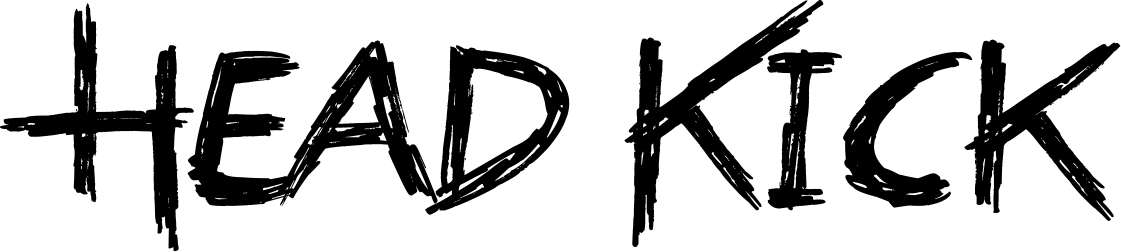
Head Kick Font
If you wish to give a playful vibe to your text design, Head Kick can be a great opportunity for you. This sketch-style font is appearing in scratched and bold characters and suits storybooks, cartoons, anime, and more.…
If you wish to give a playful vibe to your text design, Head Kick can be a great opportunity for you. This sketch-style font is appearing in scratched and bold characters and suits storybooks, cartoons, anime, and more. Bear in mind that this script font covers uppercase letters only. Don’t hesitate and hit the download button without a second thought!